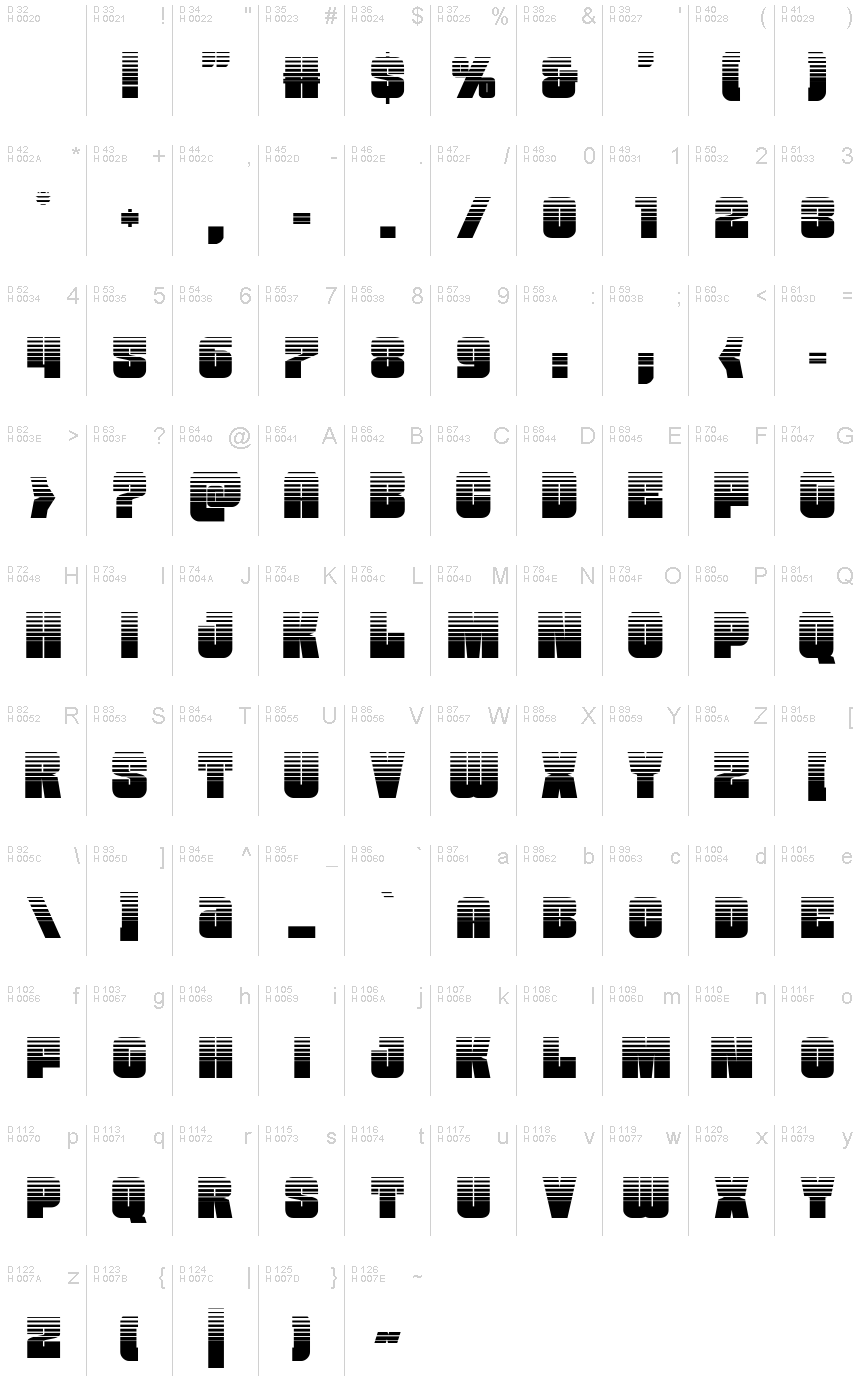
Funk Machine Halftone
Funk Machine Halftone font is a groovy display typeface designed by Iconian Fonts. Bold and geometric with a futuristic flair, this font sports a distinctive striped pattern and high contrast that turns heads. Its angular, modern look combined with uniform spacing and blocky structure give it a digital aesthetic that stands out. The bold weight and expanded width add extra punch to its overall presentation.
Use cases for Funk Machine Halftone include anything suited to high-energy applications such as festivals, extreme sports branding, posters or wherever you want to inject an exciting feel into your work - headers, titles, much more – go nuts!